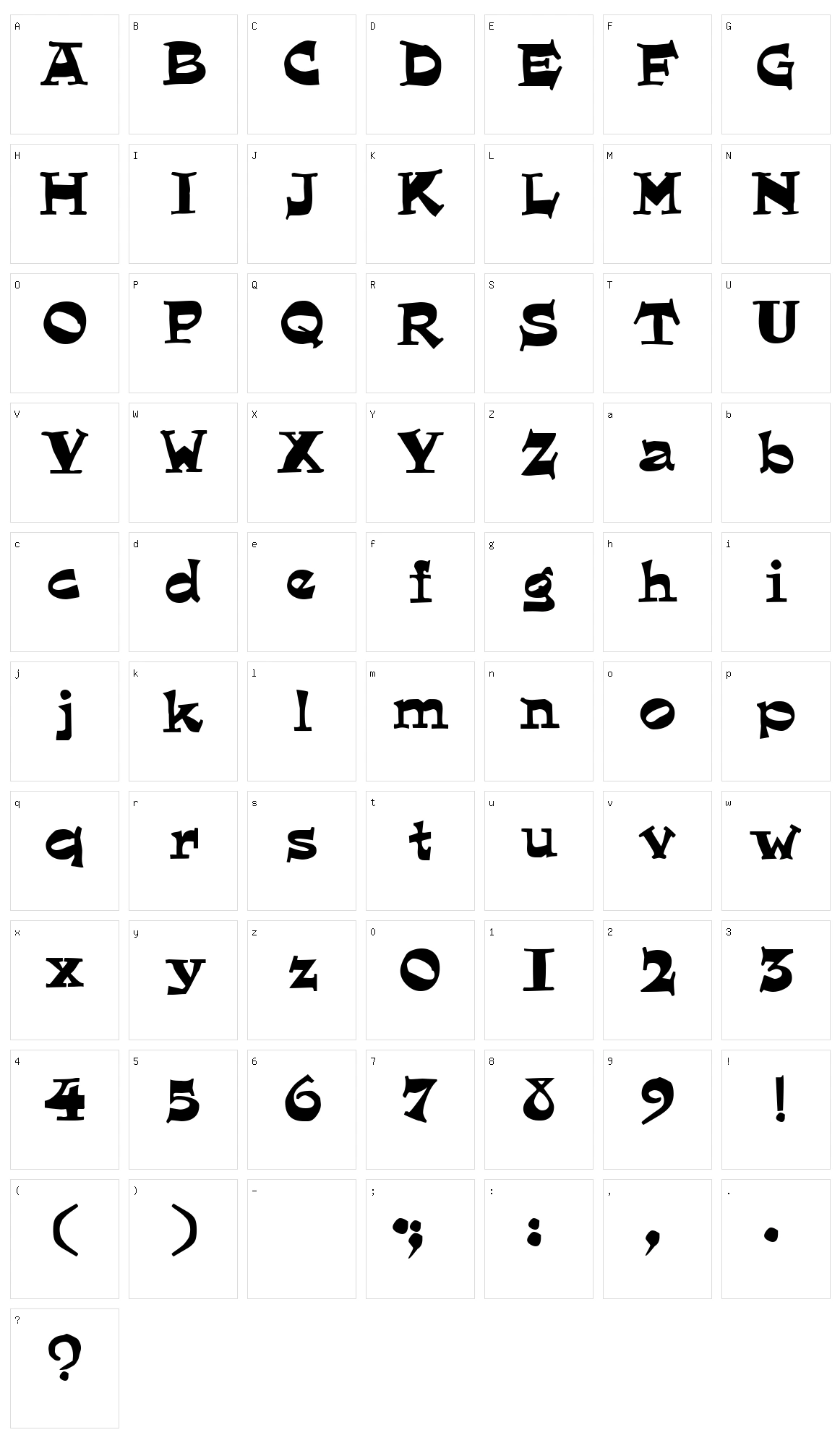
The free font Eglantine is carefully designed by The Scriptorium, showcasing a thoughtful balance of creativity and usability and falls under the Cartoon font style. When you download the ZIP file, it contains only 15.75 KB of font files, making it lightweight and quick to download. Please review the license details below to understand permitted usage and distribution rights. If license information is not available, we recommend using this font for personal projects only or contacting the author directly for commercial usage permissions.